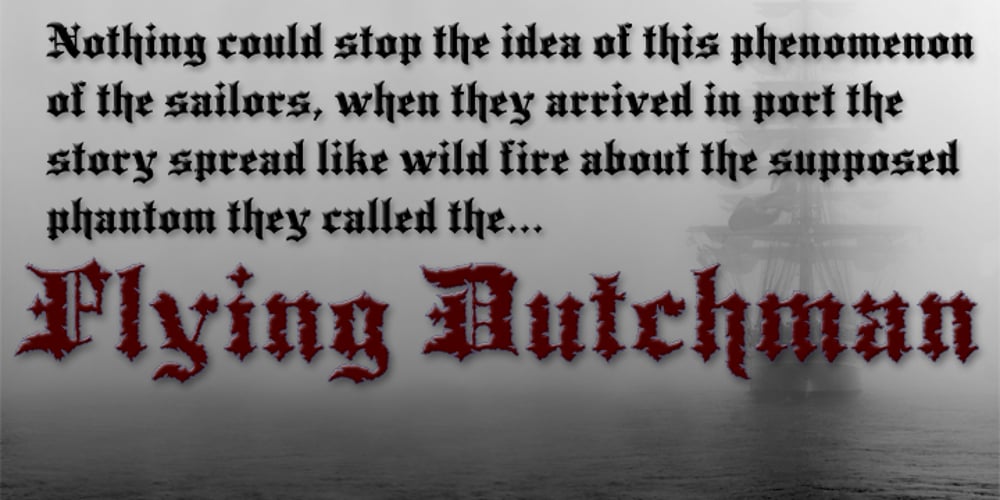
Flying Dutchman
Flying Dutchman font
Flying Dutchman Font Family was designed by Michael Hagemann and published by FontMesa. Flying Dutchman contains 2 styles and family package options. In nautical folklore, the Flying Dutchman is a ship that can never go home and is doomed to sail the seas forever as a ghost ship. The story of the Dutchman appeared in print in the 1820s. With different versions written over the years, some date the legend to the 1640s or the early 1700s. The Flying Dutchman font is a revival of an 1876 font from MacKellar, Smiths & Jordan Co. The Truetype and OpenType formats include a larger extended character set with Central and Eastern European accented letters. Extra characters in this font are left and right pointing hands in place of the less than and greater than keys and a pirate flag is on the bracket keys. New to this style is the distressed version where the letters look like they’ve been hacked by a cutlass.